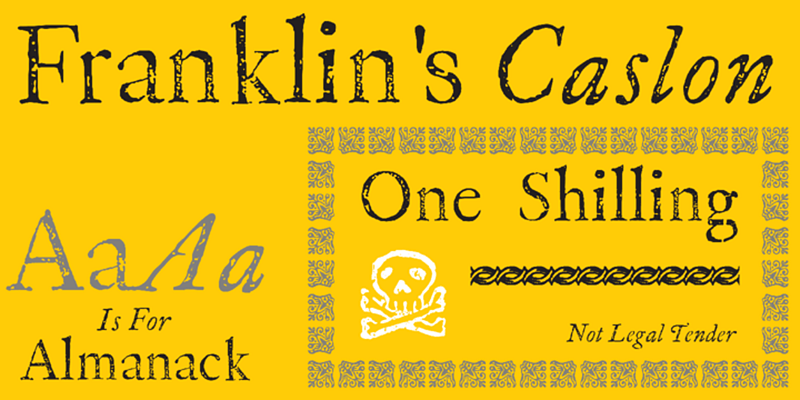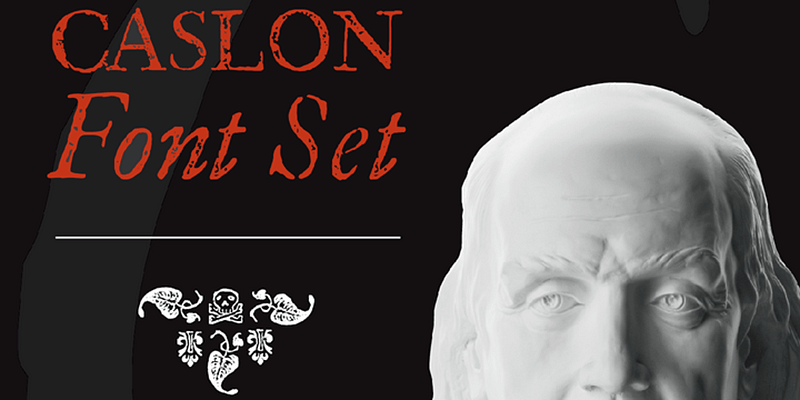
P22 Franklin Caslon includes letterforms digitized from images of impressions made by Benjamin Franklin and his printing office circa 1750, giving an authentic look of Franklin’s actual work.